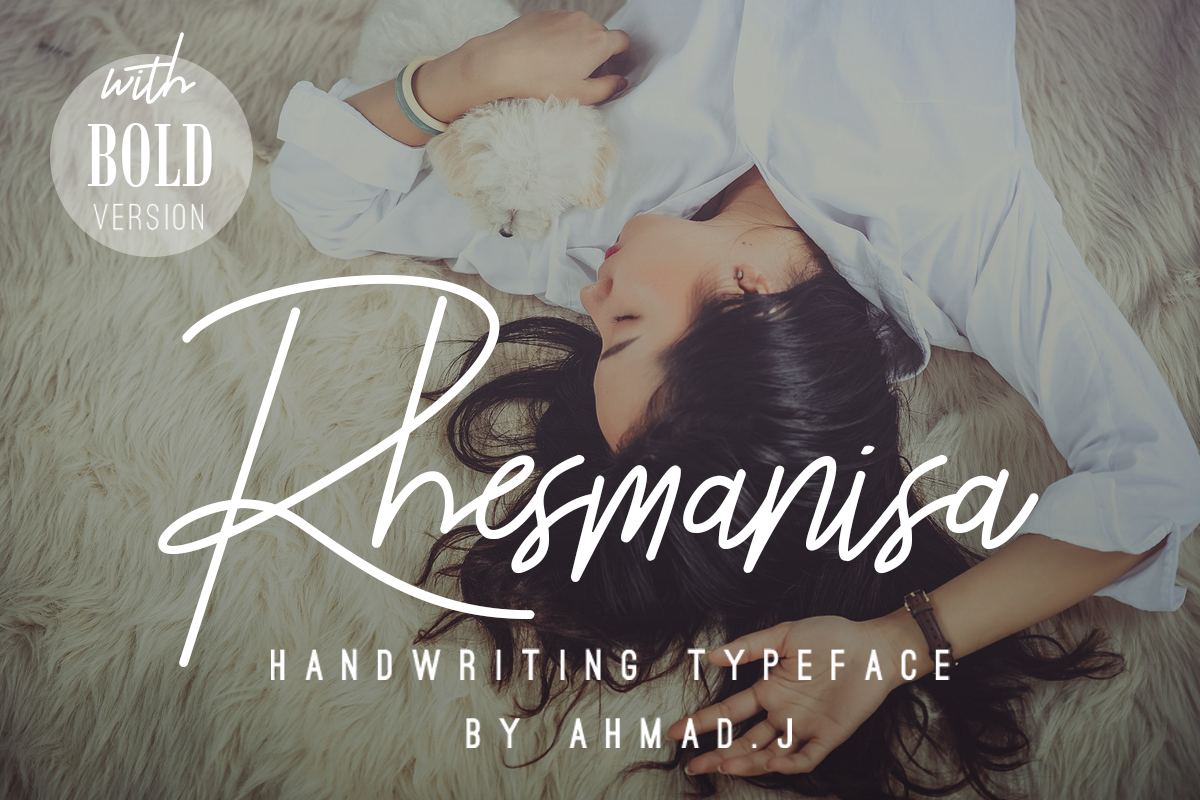
Rhesmanisa Signature Font Free Download
Rhesmanisa – Signature Font Free Download is a stylish and graceful handwritten typeface that mimics the elegance of a natural signature. Please note, you are required to purchase this font for commercial use. It is available for free download for testing and personal projects only.
With its flowing lines, delicate curves, and luxurious feel, Rhesmanisa is perfect for personal branding, fashion logos, wedding invitations, product packaging, and social media graphics. It brings a personal, high-end touch to your typography—ideal for creating a sophisticated and authentic look.